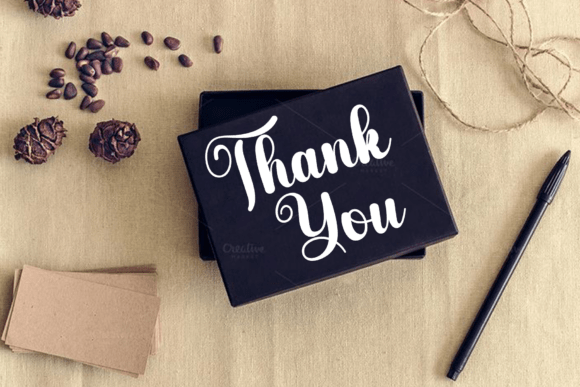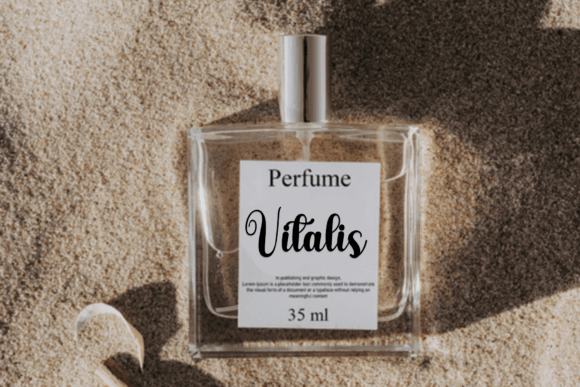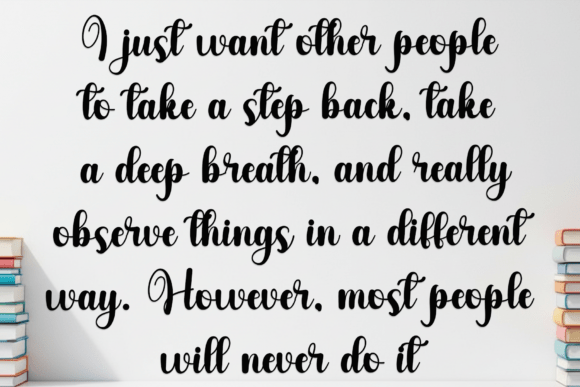
Introduction to Happy Ground Font
As a designer, there’s nothing quite like the thrill of creating a project that brings joy to others. Whether it’s a holiday card for a loved one or a festive poster for a local event, the right font can make all the difference. And that’s where Happy Ground Font comes in – a high-quality, festive typeface that captures the magic of the holiday season.
With its whimsical flair and decorative elements, Happy Ground Font is the perfect design resource for any creative project. Whether you’re working on a commercial project or a personal one, this font adds a touch of enchantment to your designs. Plus, with its transparent background, you can easily combine it with other elements to create a cohesive look.
Key Features of Happy Ground Font
- High-quality design resource ideal for creative projects, with a unique and playful style.
- Includes a large character set, including uppercase and lowercase letters, numbers, and punctuation marks.
- Perfect for adding a touch of whimsy and fun to any creative project, from logos and branding to digital art and graphics.
Honest Review: Happy Ground Font
I recently had the chance to work with the Happy Ground Font, and I must say it’s been a game-changer for my creative project. This high-quality design resource has everything I need to take my designs to the next level.
- ✨ Beautiful, playful style that adds a touch of whimsy to any design
- ✨ High-quality vectors that are perfect for both digital and print projects
- ⚠️ Limited character set, which can make it difficult to use for longer texts
- ⚠️ Some glyphs may not be fully optimized for certain font sizes
Overall, I’m really impressed with the Happy Ground Font. Its unique style and high-quality vectors make it a great addition to any design library. With a little creativity, I’ve been able to work around its limitations and achieve some amazing results. If you’re looking for a fun and versatile font, I’d definitely recommend giving it a try.